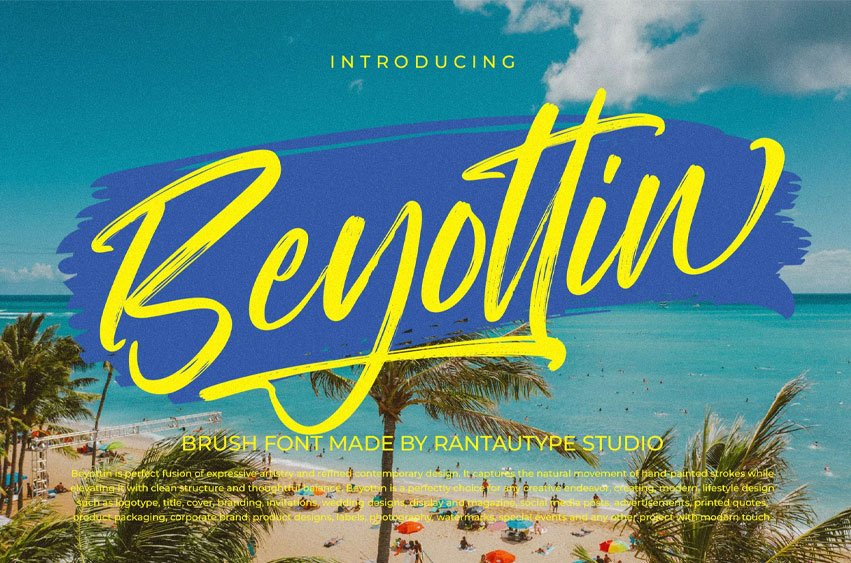
Beyottin Font is perfect fusion of expressive artistry and refined contemporary design. It captures the natural movement of hand-painted strokes while elevating it with clean structure and thoughtful balance.
Beyottin is a perfectly choice for any creative endeavor, creating, modern, lifestyle design such as logotype, title, cover, branding, invitations, wedding designs, display and magazine, social media posts, advertisements, printed quotes, product packaging, corporate brand, product designs, labels, photography, watermarks, special events and any other project with modern touch.